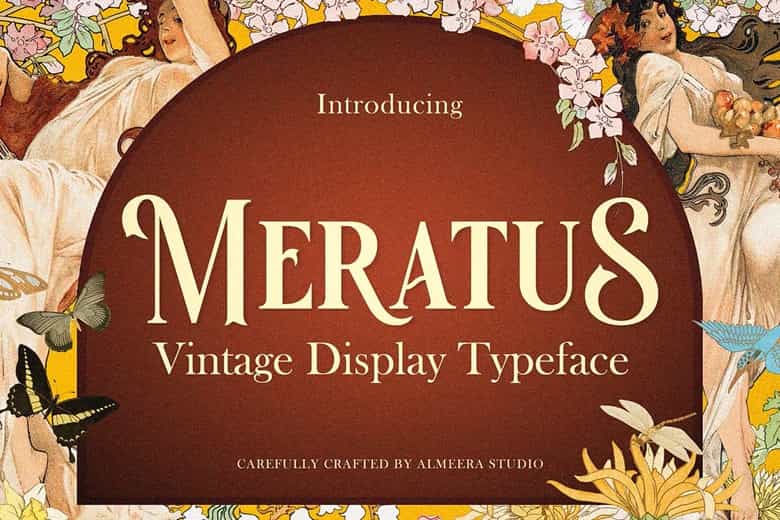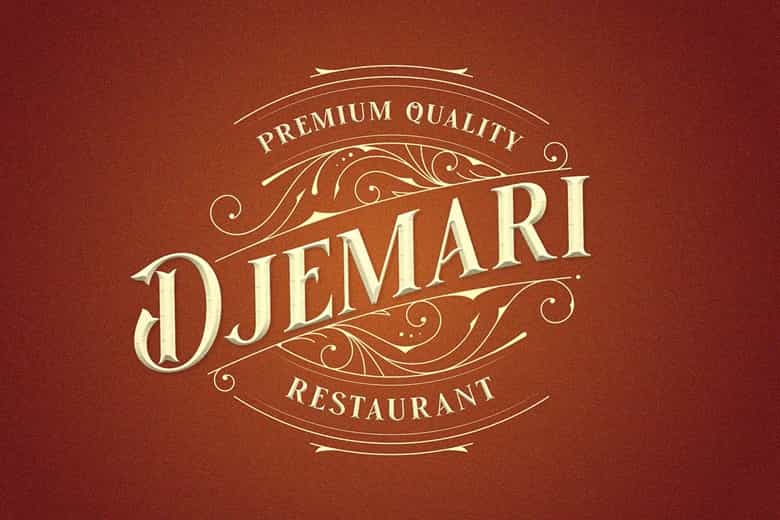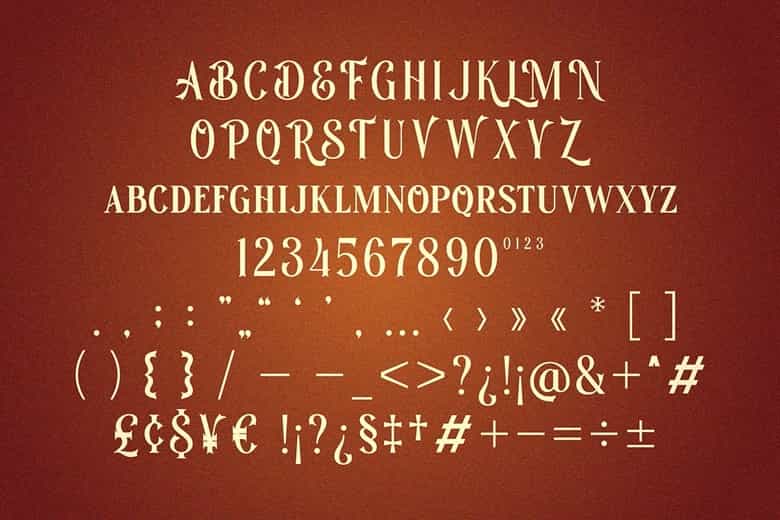
Meratus is an elegant and modern vintage display serif font, This font is very appropriate to your diverse needs like branding projects, logo, social media, advertisement, labels, product packaging, photography, wedding designs, watermarks, invitation product designs, stationery and all types of projects.